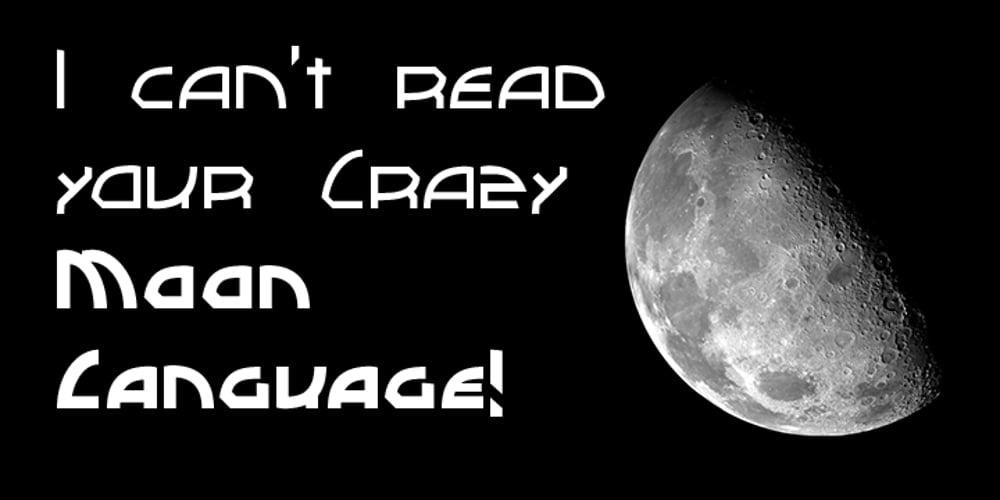
WL Lunatrix
WL Lunatrix font
WL Lunatrix Font Family was designed by Samuel Goldstein and published by Writ Large. WL Lunatrix contains 6 styles and family package options. Lunatrix is a conceptual type face for futuristic or fantastic treatments. Ideal for suggesting strange new worlds of science-fiction, it can also evoke a land of fantasy or even hint at the occult. In its lighter weights, Lunatrix is well suited for applications such as posters, album covers, video games, and graphic novels, while in its heavier weights, it’s appropriate for titling and more complex type treatments.